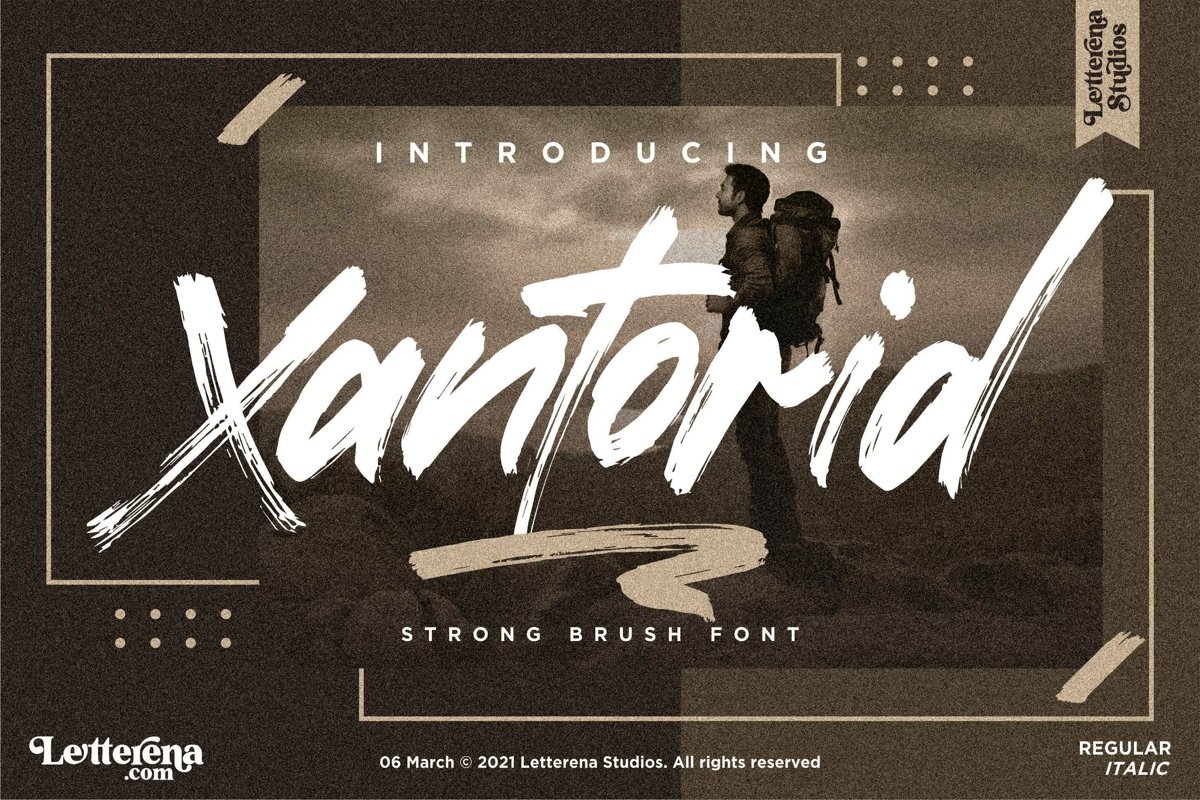
Xantorid Brush Font is a free brush script typeface, suitable for any projects such as: logos, branding projects, homeware designs, product packaging, mugs, quotes, posters, shopping bags, t-shirts, book covers, name card, invitation cards, greeting cards, label, photography, watermark, special events, and all your other luxury projects that need a strong brush taste.
Xantorid Brush Script Font